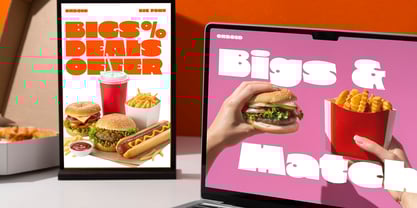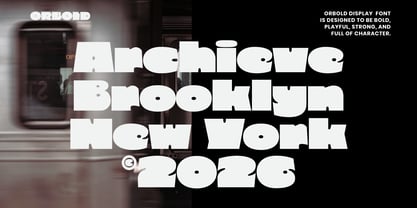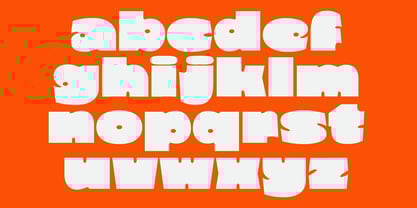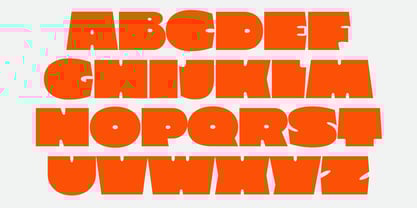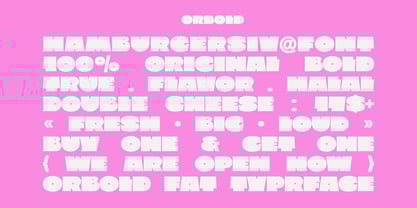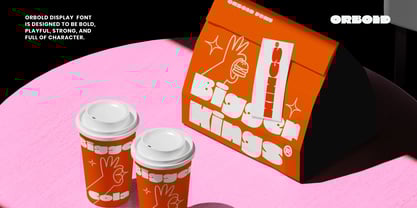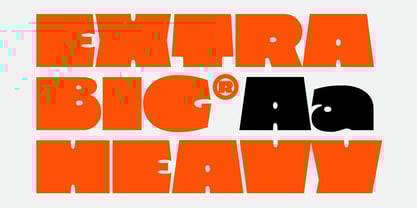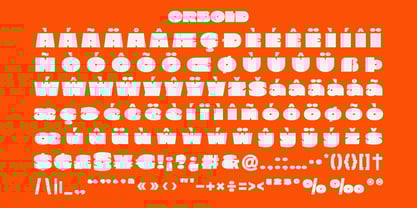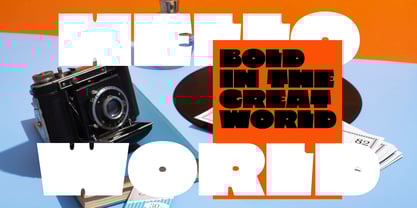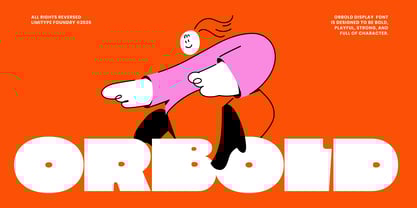
Orbold
La familia tipográfica Orbold fue diseñada por Muhammad Muammar, Furqan Sudirman y publicada por limitype. Orbold contiene 1 estilos. Más información sobre esta familia
Orbold is a extrabold and expressive display typeface designed to deliver a playful yet powerful presence. Its strong, confident letterforms create an immediate visual impact, making it ideal for headlines, posters, logos, and standout branding applications. With solid construction and a distinctive character in every letter, Orbold Display helps your designs capture attention and leave a lasting first impression. Orbold available with: Uppercase Lowercase Number Symbol Multilingual